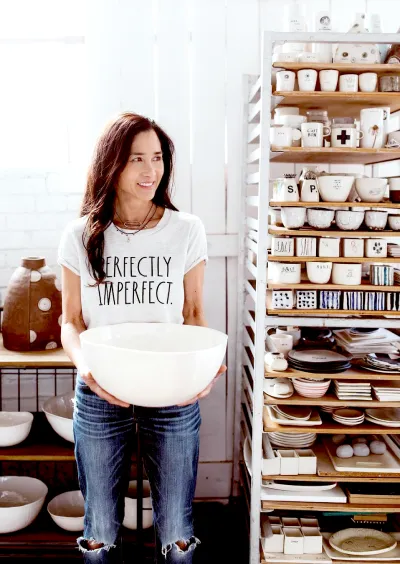
Rae Dunn Font
Rae Dunn, a renowned artist and designer, is known for her unique handwritten style that has become a hallmark of the farmhouse aesthetic. Her work, influenced by the Japanese aesthetic of Wabi-Sabi, is not an official typeface but a result of her own technique and craftsmanship. This makes finding an exact match for her font challenging. However, there are several fonts inspired by or similar to her style.
Rae Dunn, Her Work and Her Handwriting
Rae Dunn Font Similar Style
The Skinny Font
This is a free font for personal use created by Jusebox. It’s a script type font that is thin, tall, warm, and friendly with a simple structure and low contrast.
Cami Rae
Cami Rae Font
Released in 2019 by CraftThings, this font is sleek and handwritten, offering a unique and fun letter shape with a delicate texture.
Daily Challenge
Daily Challenge Font
This is a clean cut, 100% handmade, all caps font. It’s a versatile font that can adapt to various design needs.
Cookies & Milk
Cookies milk font
This font is mentioned as a Rae Dunn font dupe for projects, suggesting a similar aesthetic.
Moonflower
Moon Flower Font
This font is another similar font to Rae Dunn font style, offering a unique style that can be used for various design projects.
Slime Candy Handwritten Font
This is a awesome fonts that look similar to Rae Dunn, indicating a similar handwriting style.
In conclusion, these fonts capture the essence of the Rae Dunn style, offering a range of options for designers seeking a skinny, handwritten aesthetic.